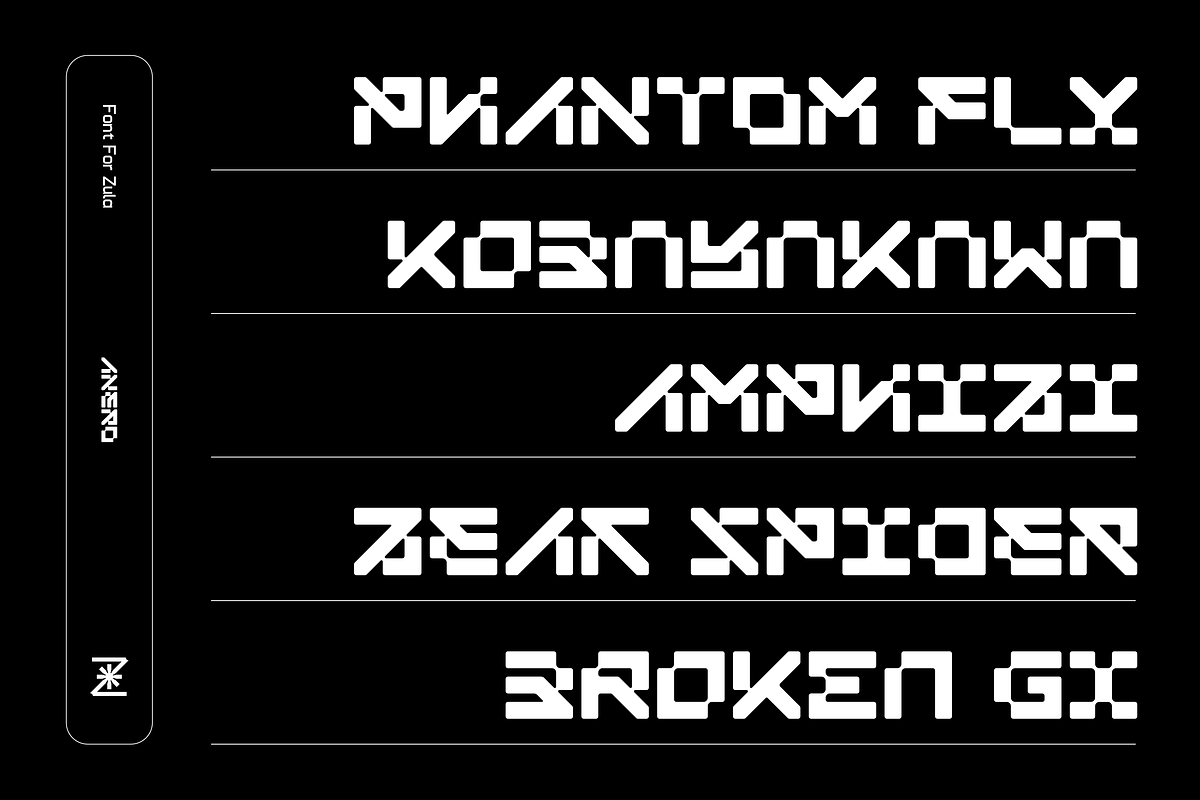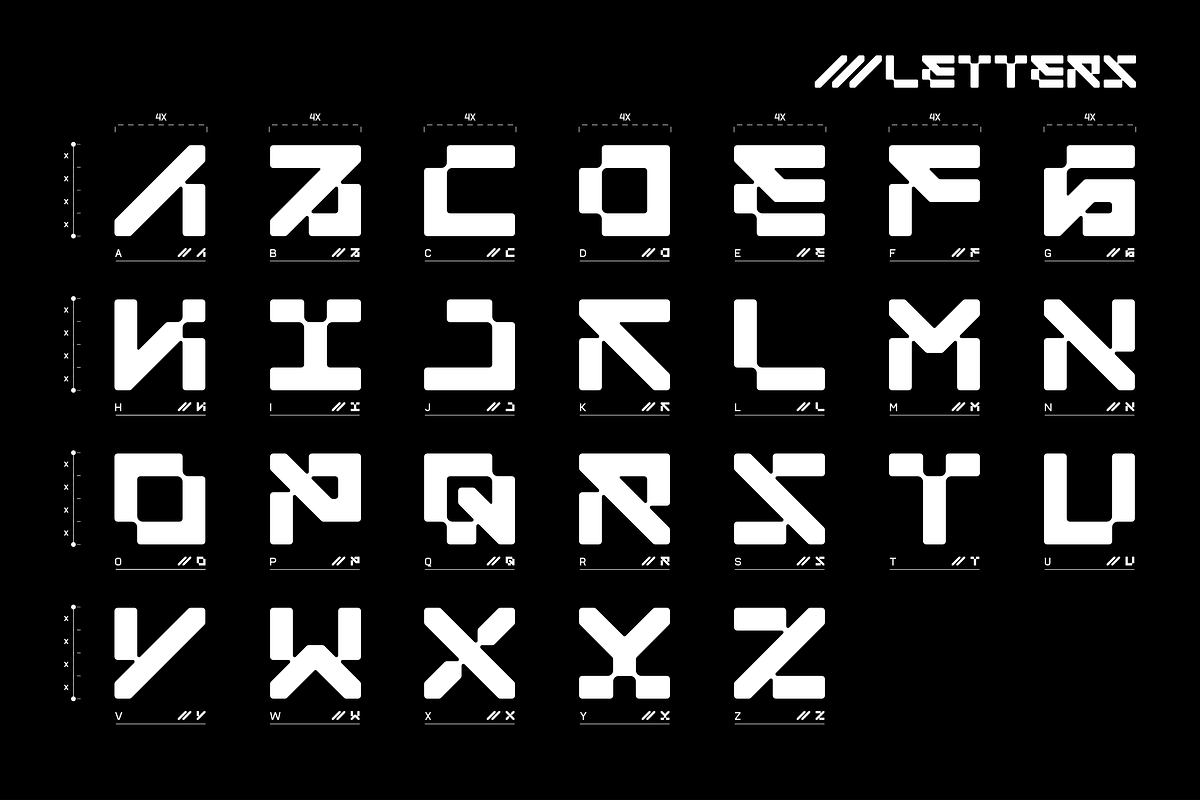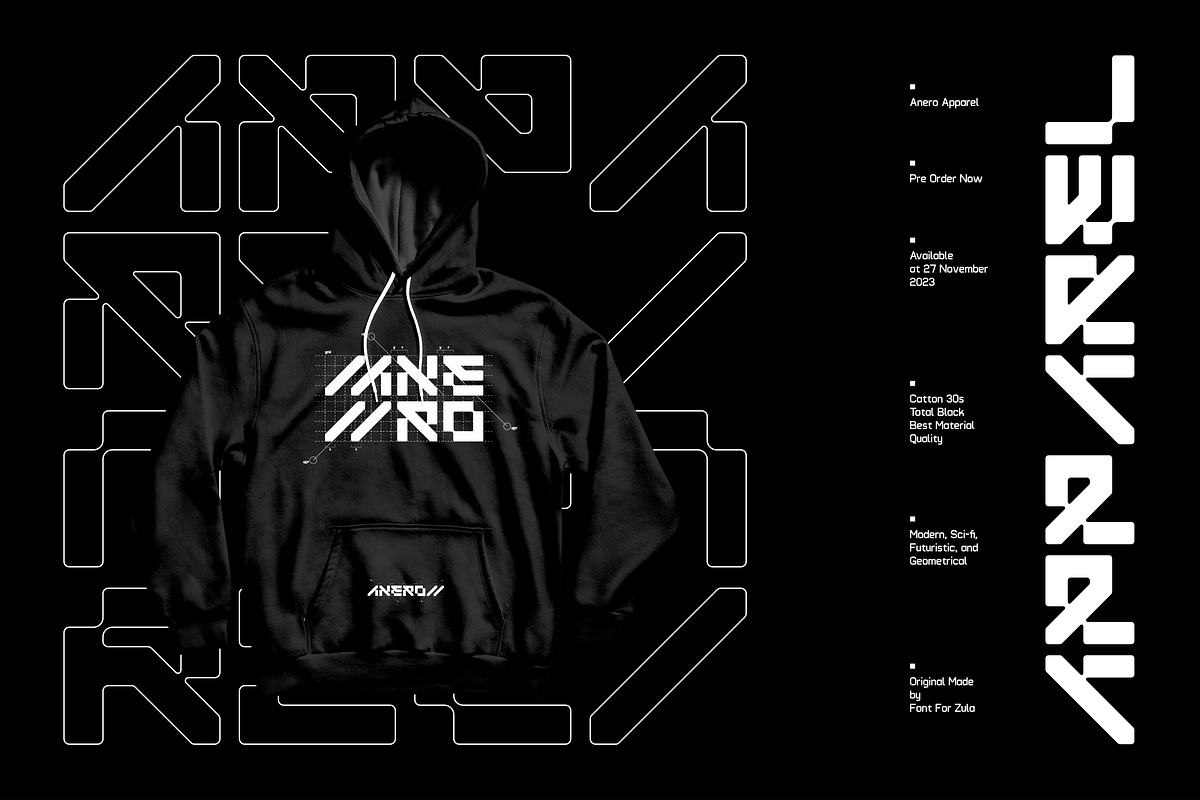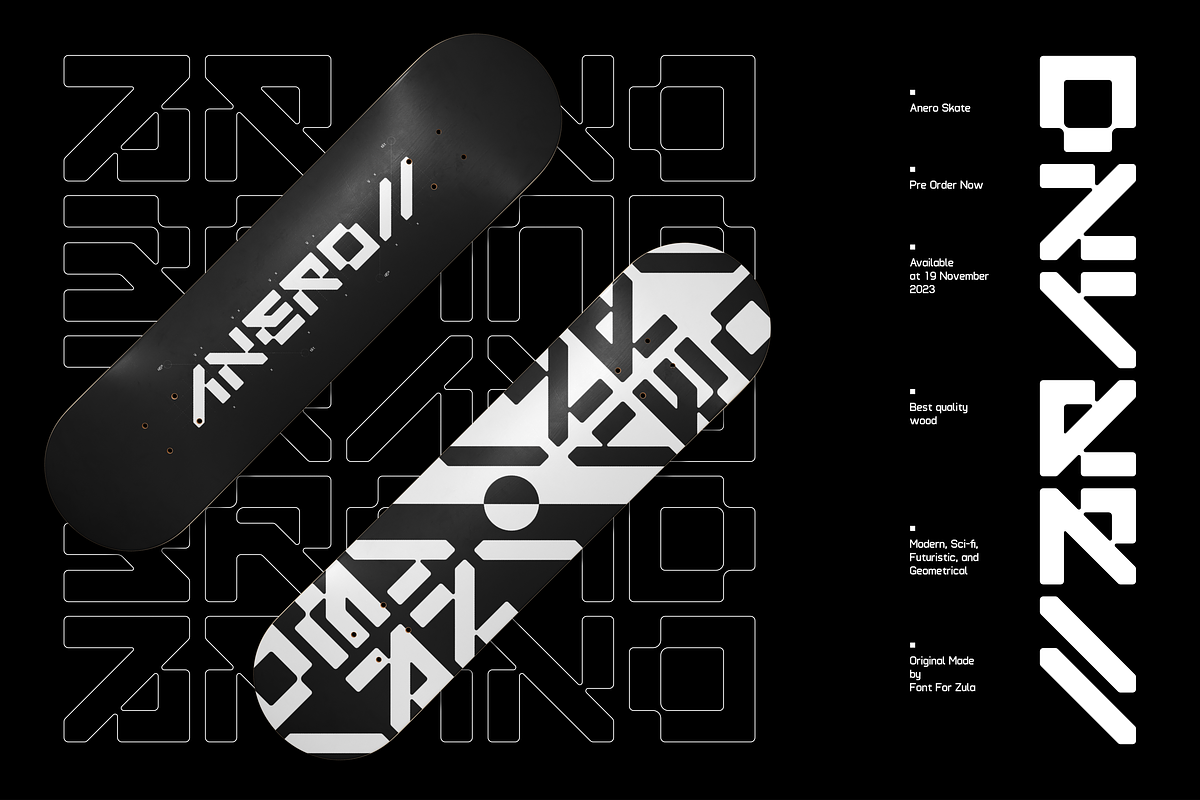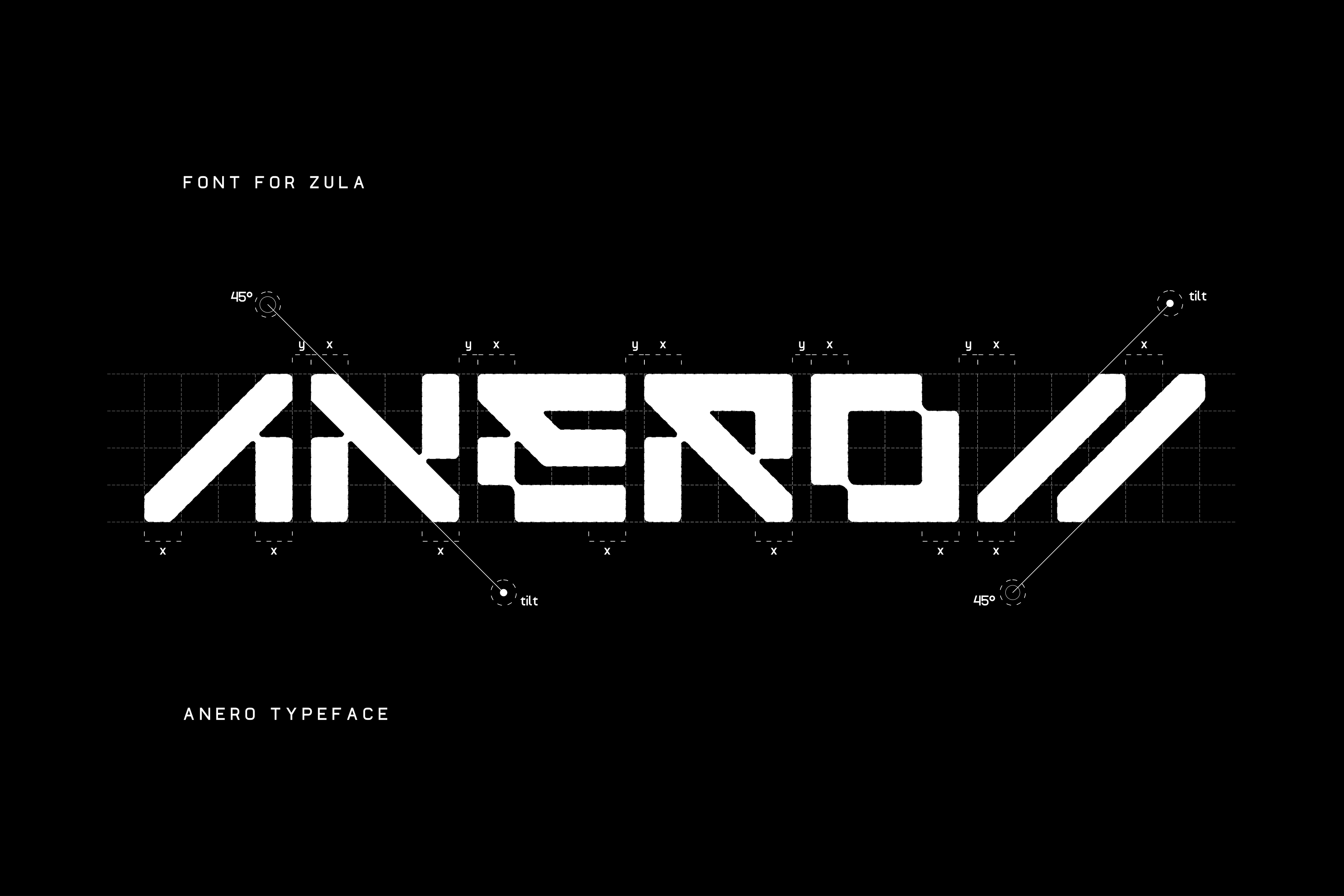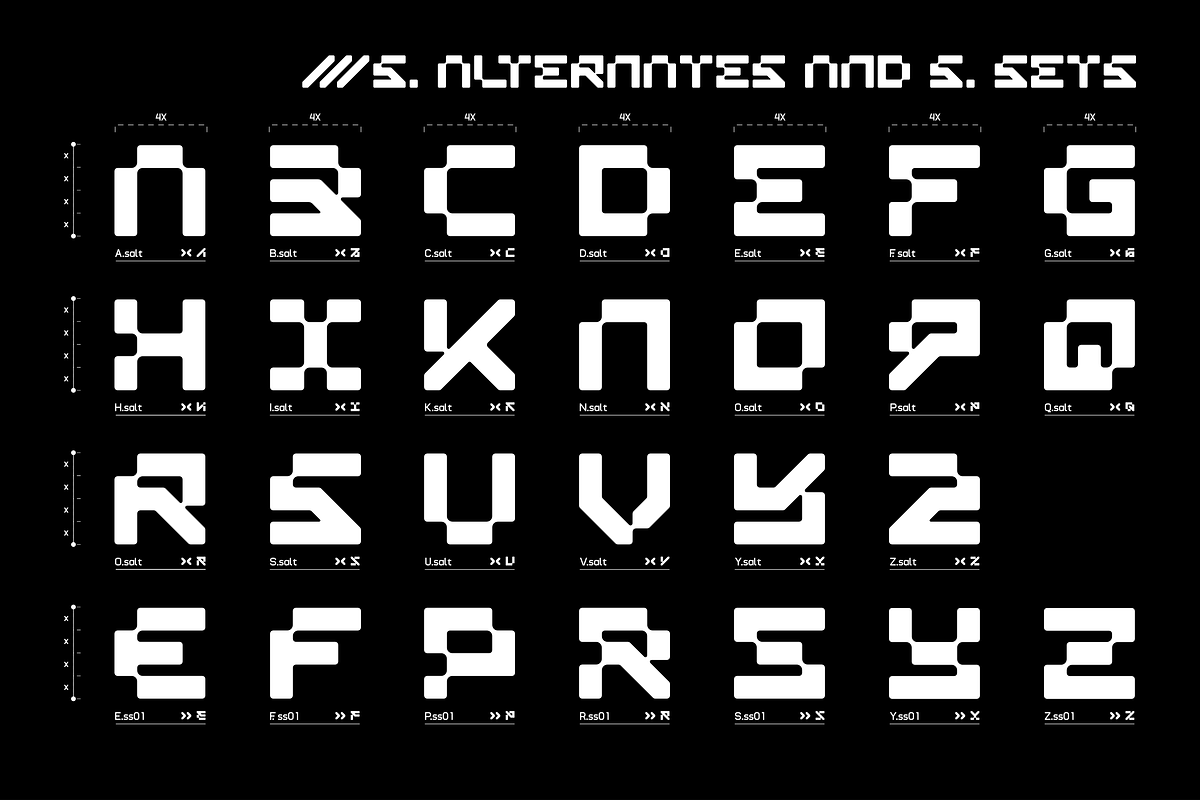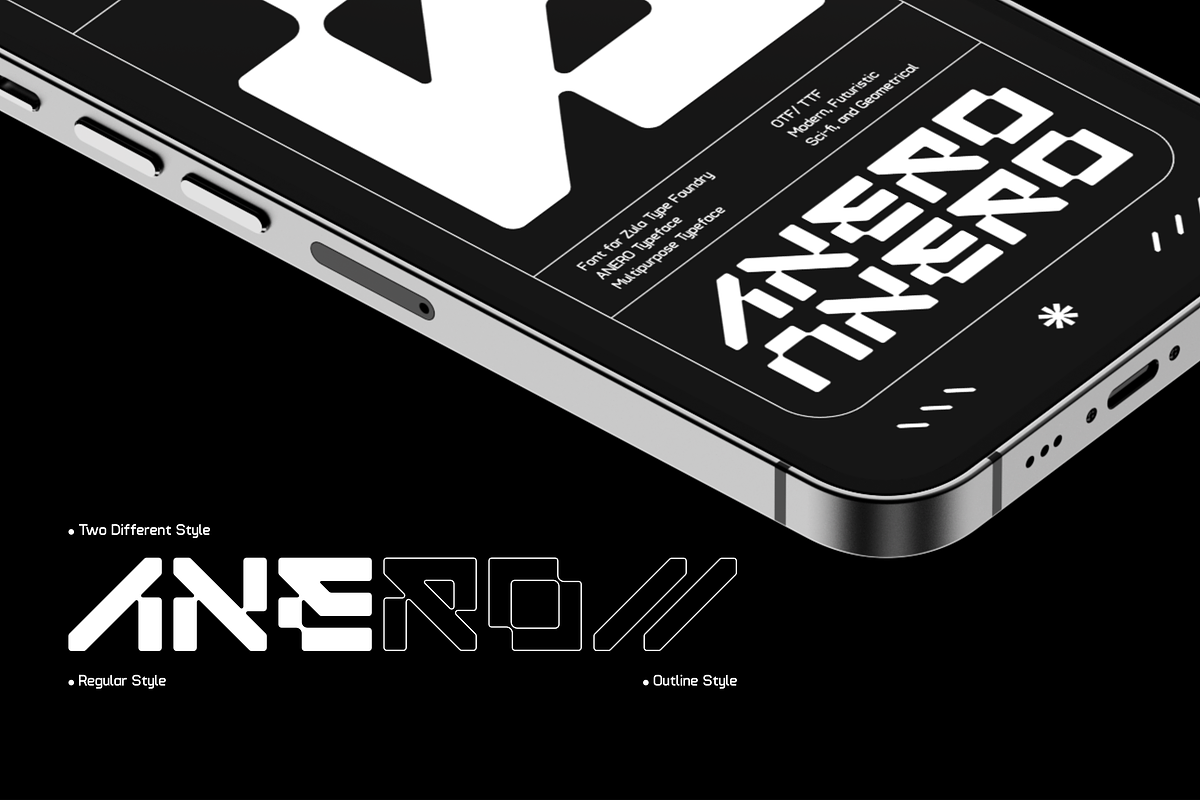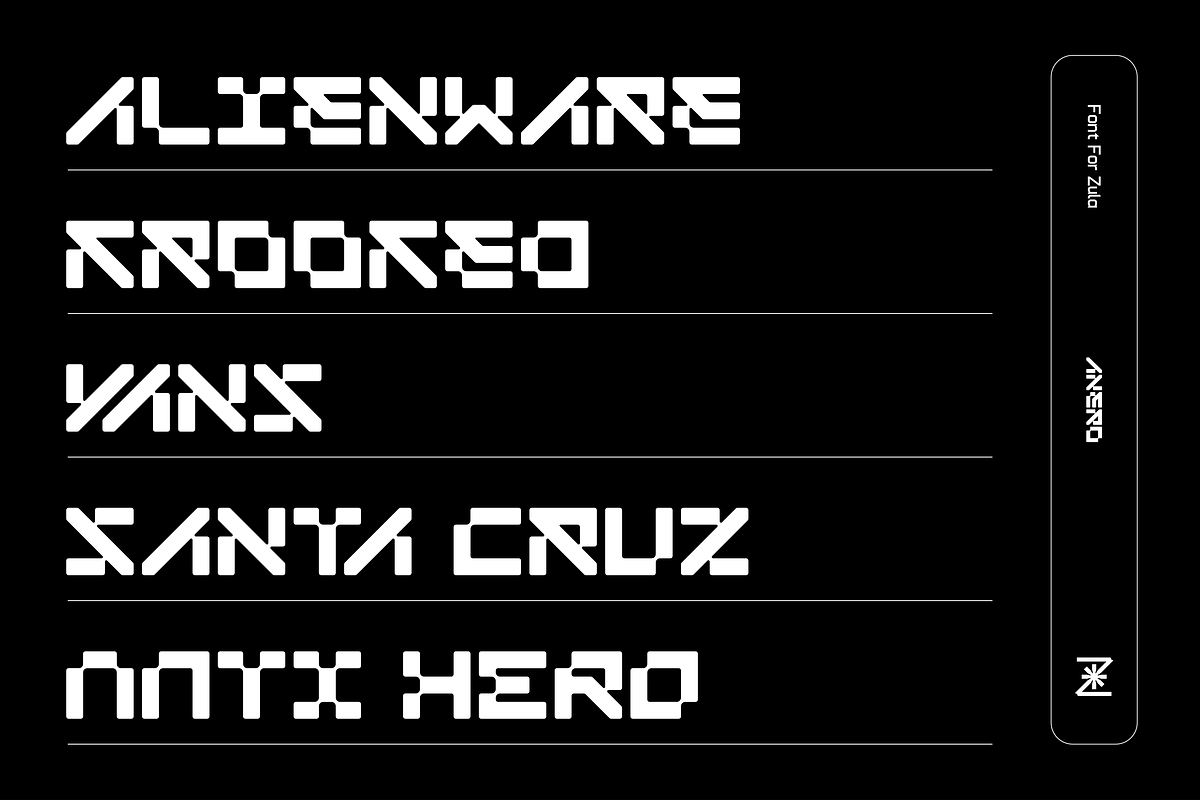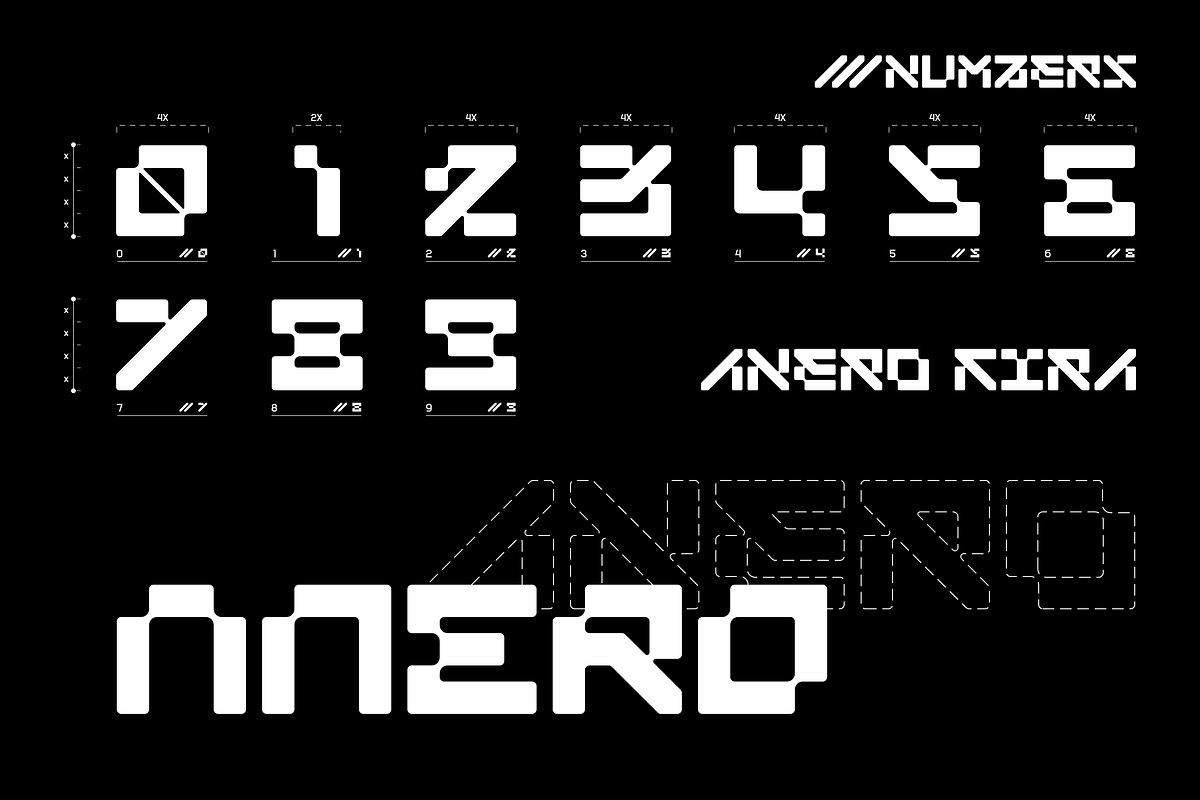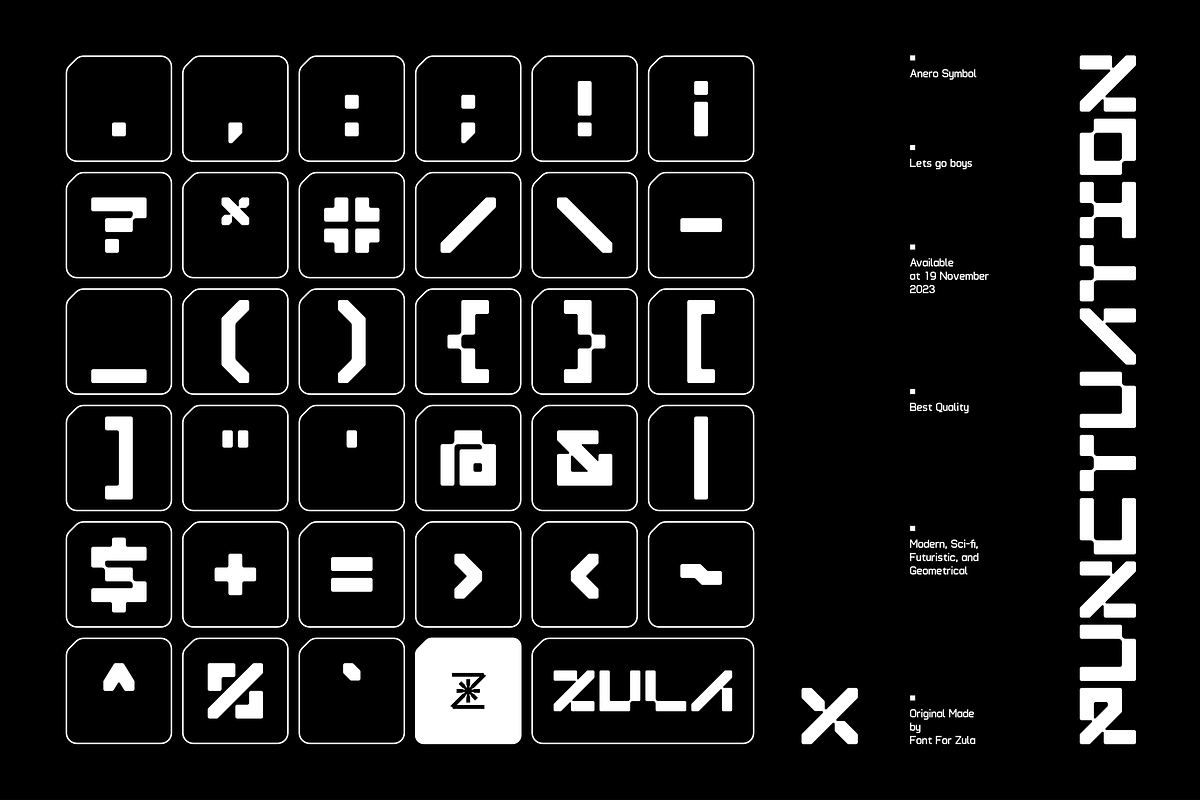
ANERO - FUTURISTIC DISPLAY FONT
Anero Typeface has a modern, futuristic, geometrical and unique design concept. This typeface is suitable for various purposes such as branding, logos, apparel, and other projects that require a futuristic or hi-tech impression.